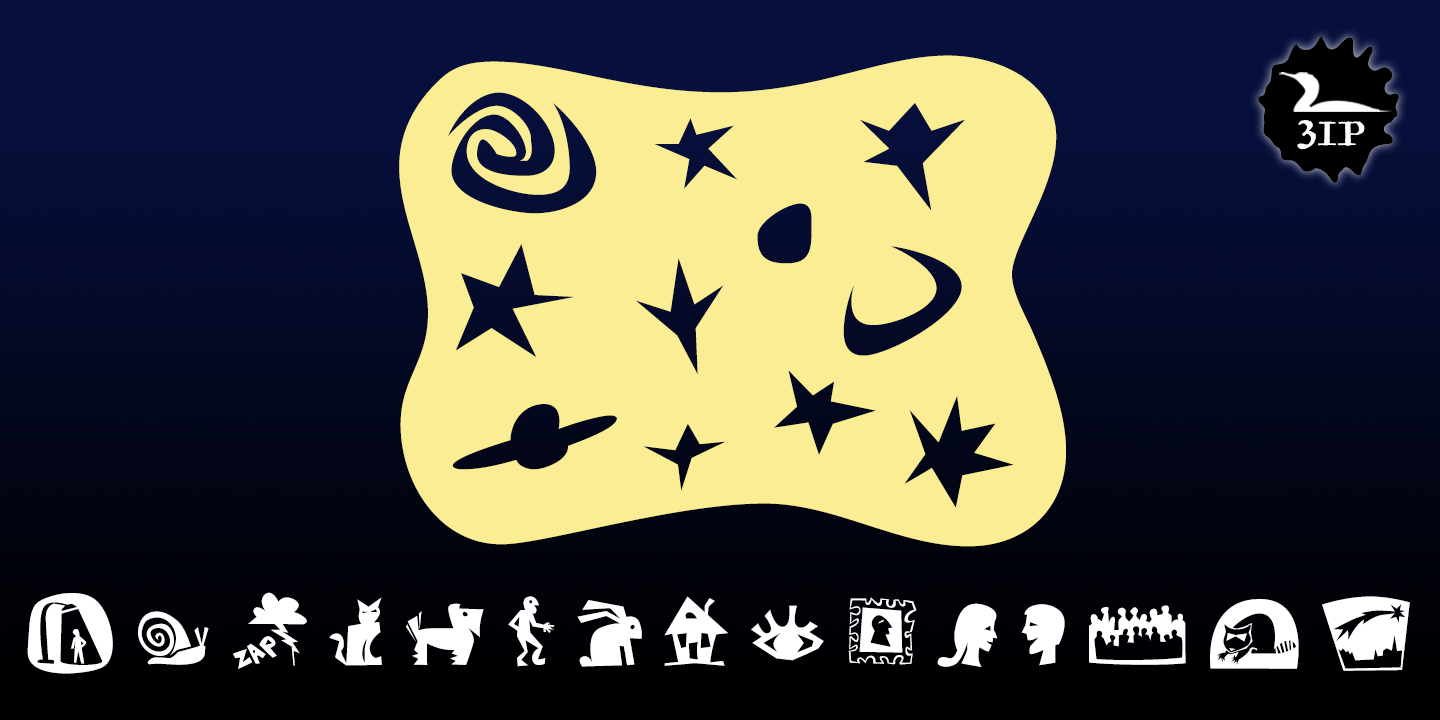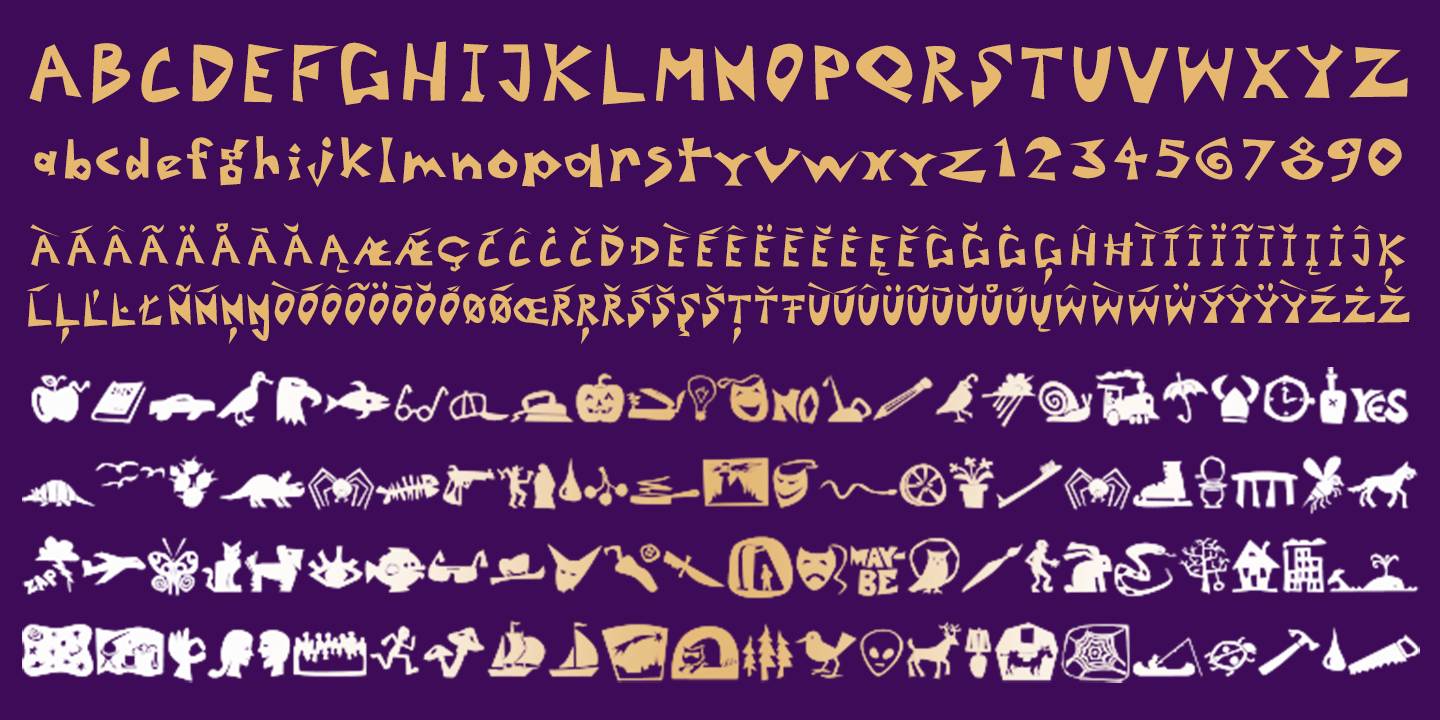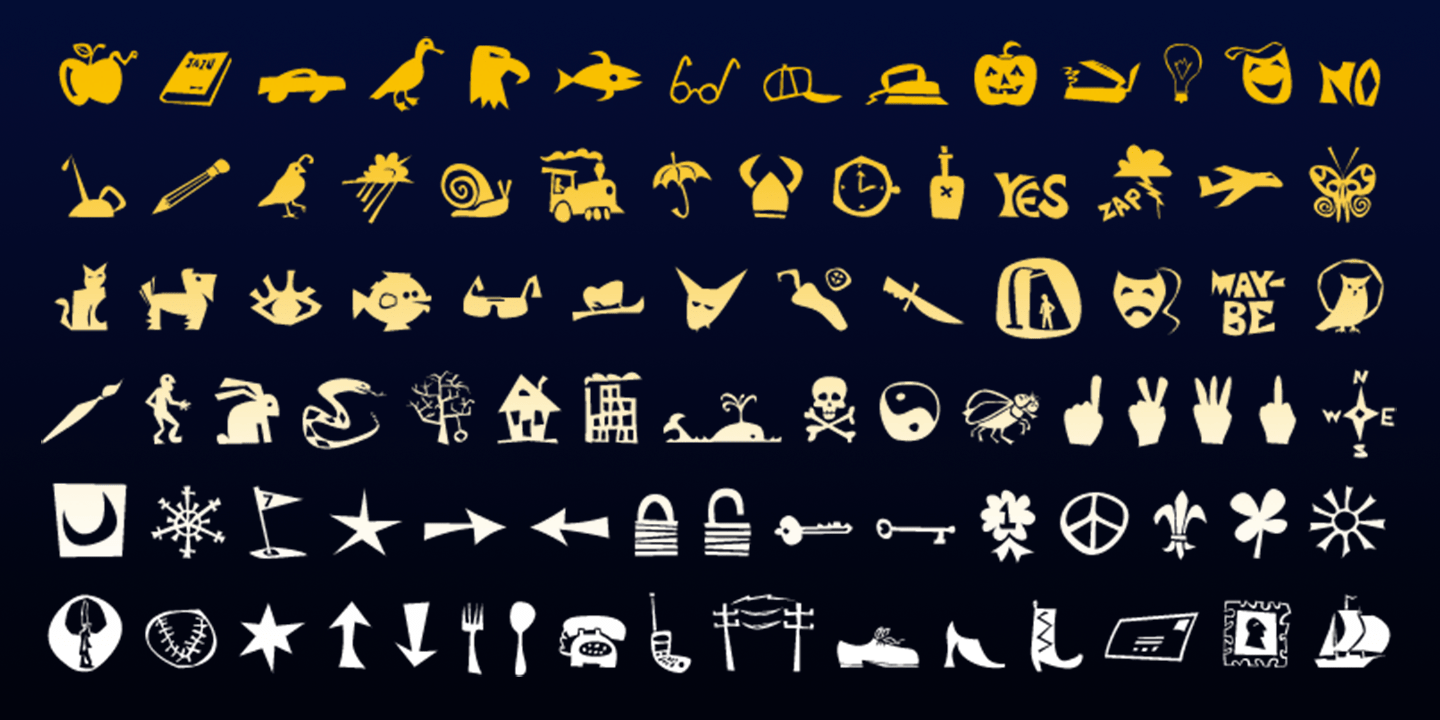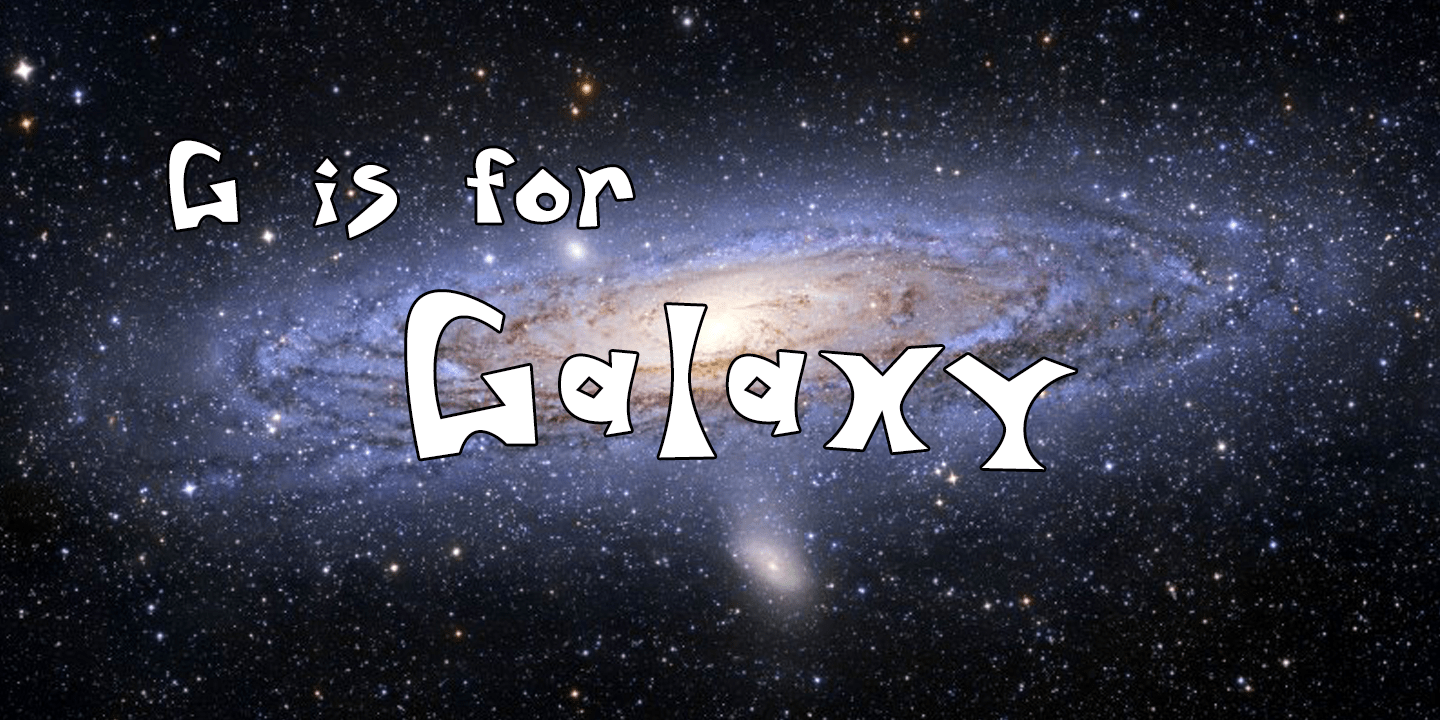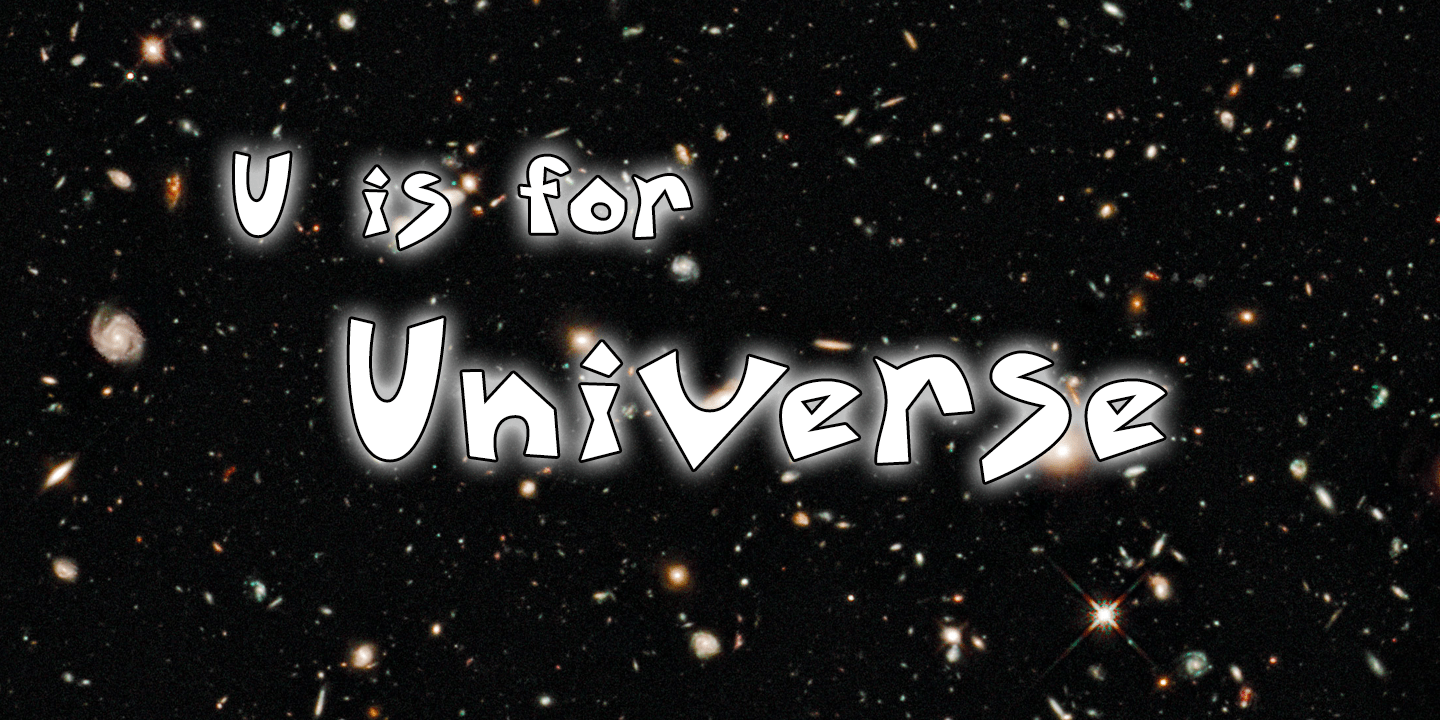
Speed Bump
I'd toiled so long over Pumpkinseed back in '96 that I guess I needed a good, wild ride to shake out the head cramps, or something. Whatever grabbed me, it forced me to sit down and design a typeface real fast directly in Fontographer (had never done that before). Took less than two hours to finish the regular character set. No way to explain it, but the exercise actually paid off -- I think. And now that there was Speed Bump, there simply had to be a companion dingbat set. (Beats the heck out of me.)
So check out Speed Bump's wacky character(s) and, if you're really bored, the 200-some-odd little pictures in Speed Bump Pi.